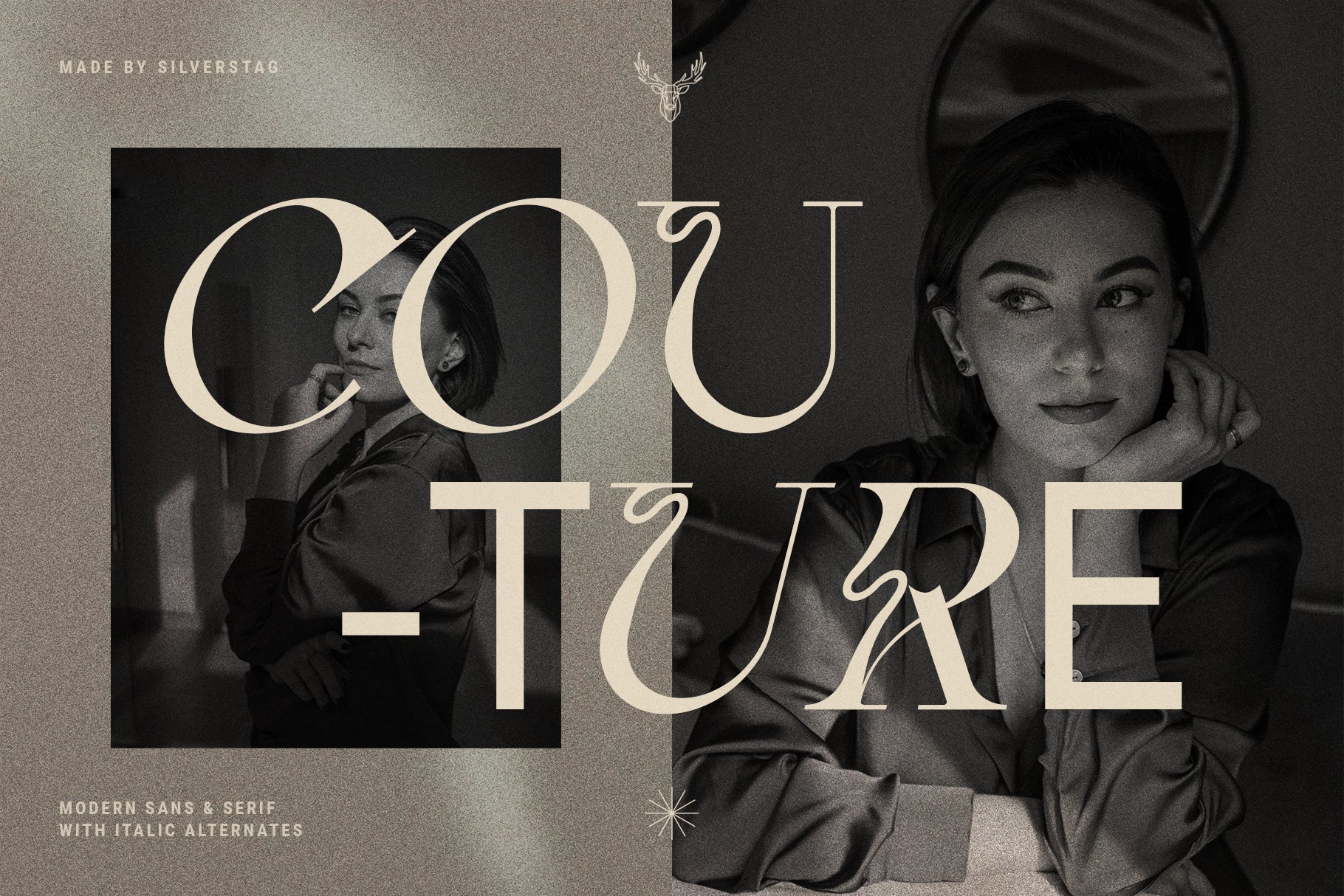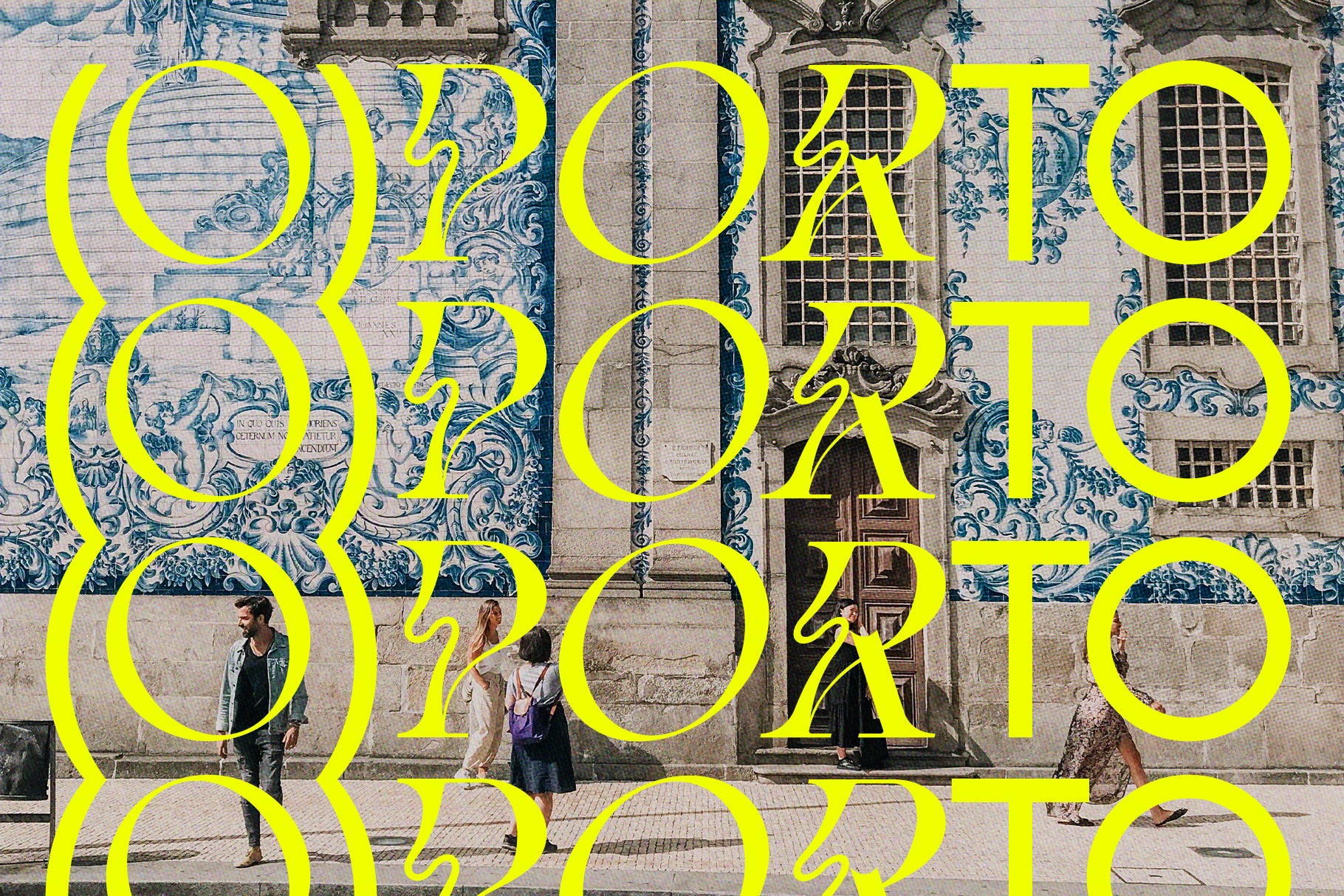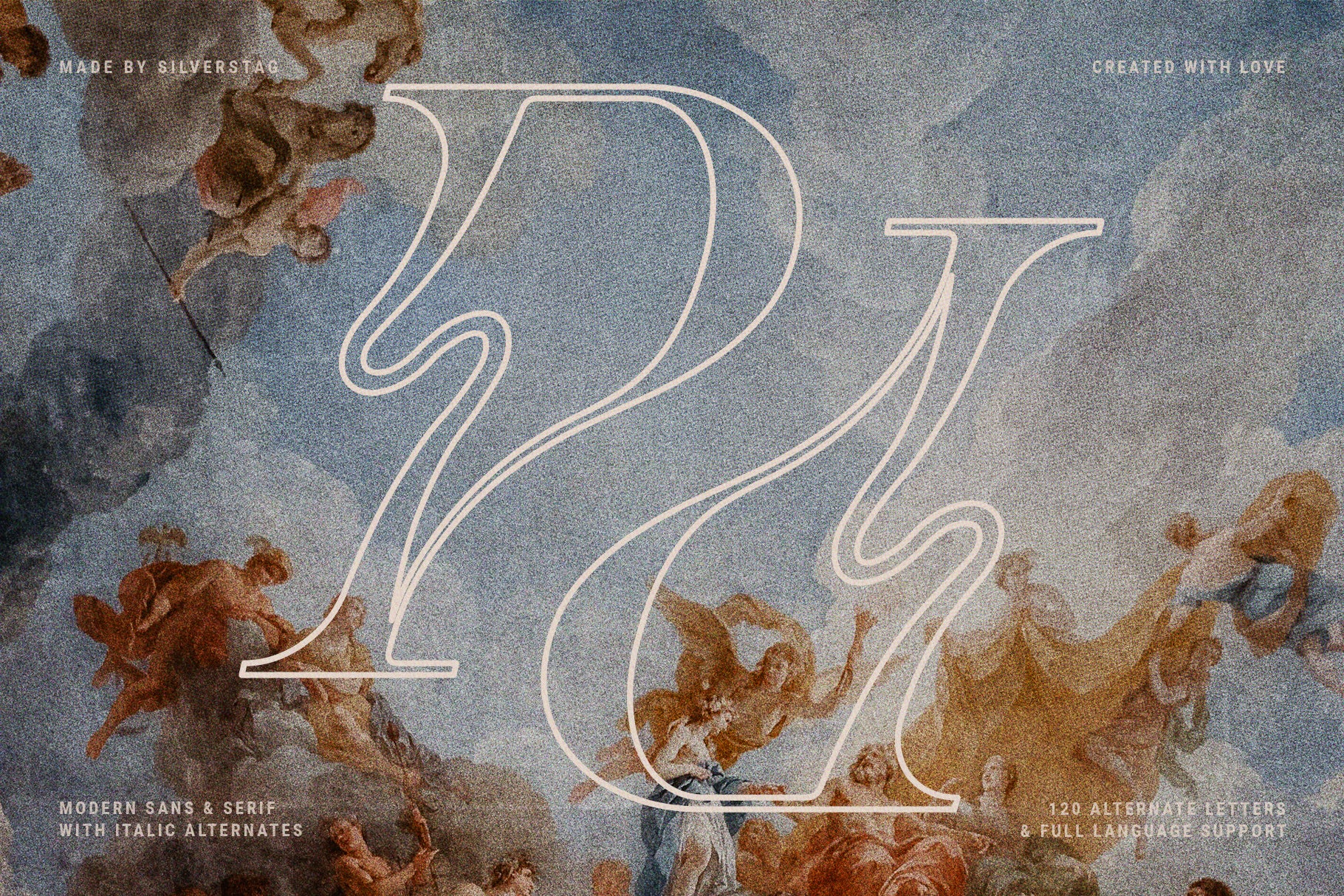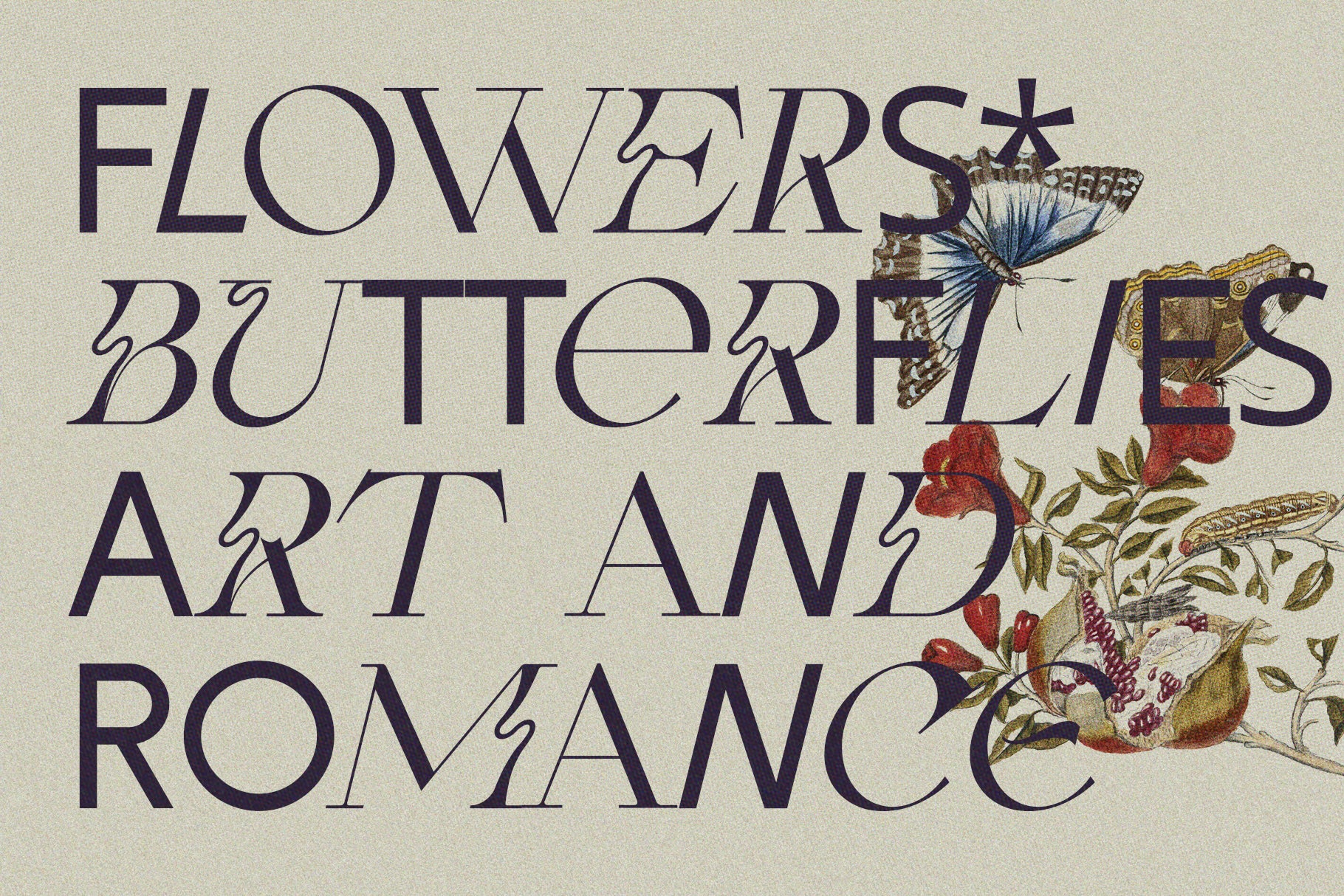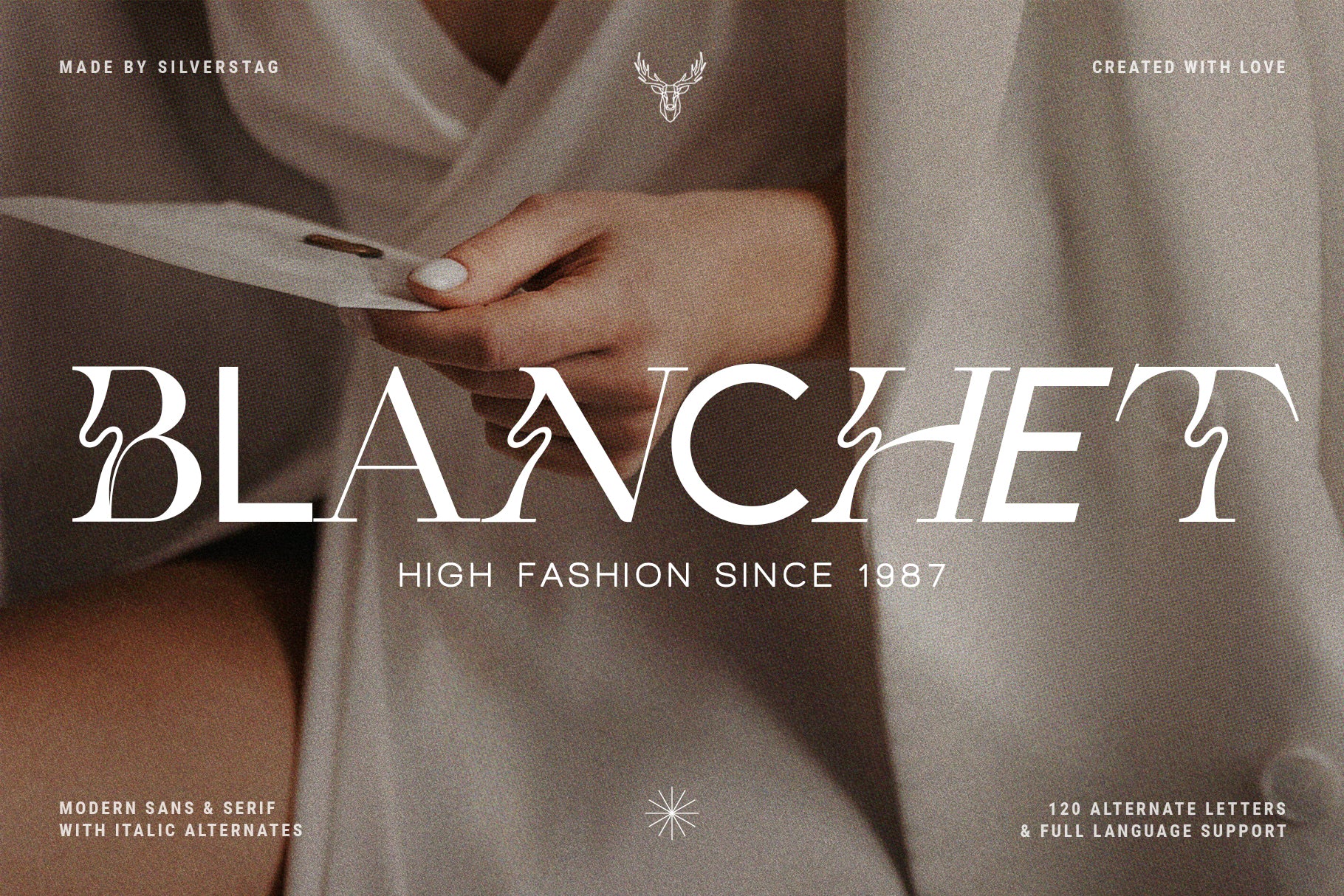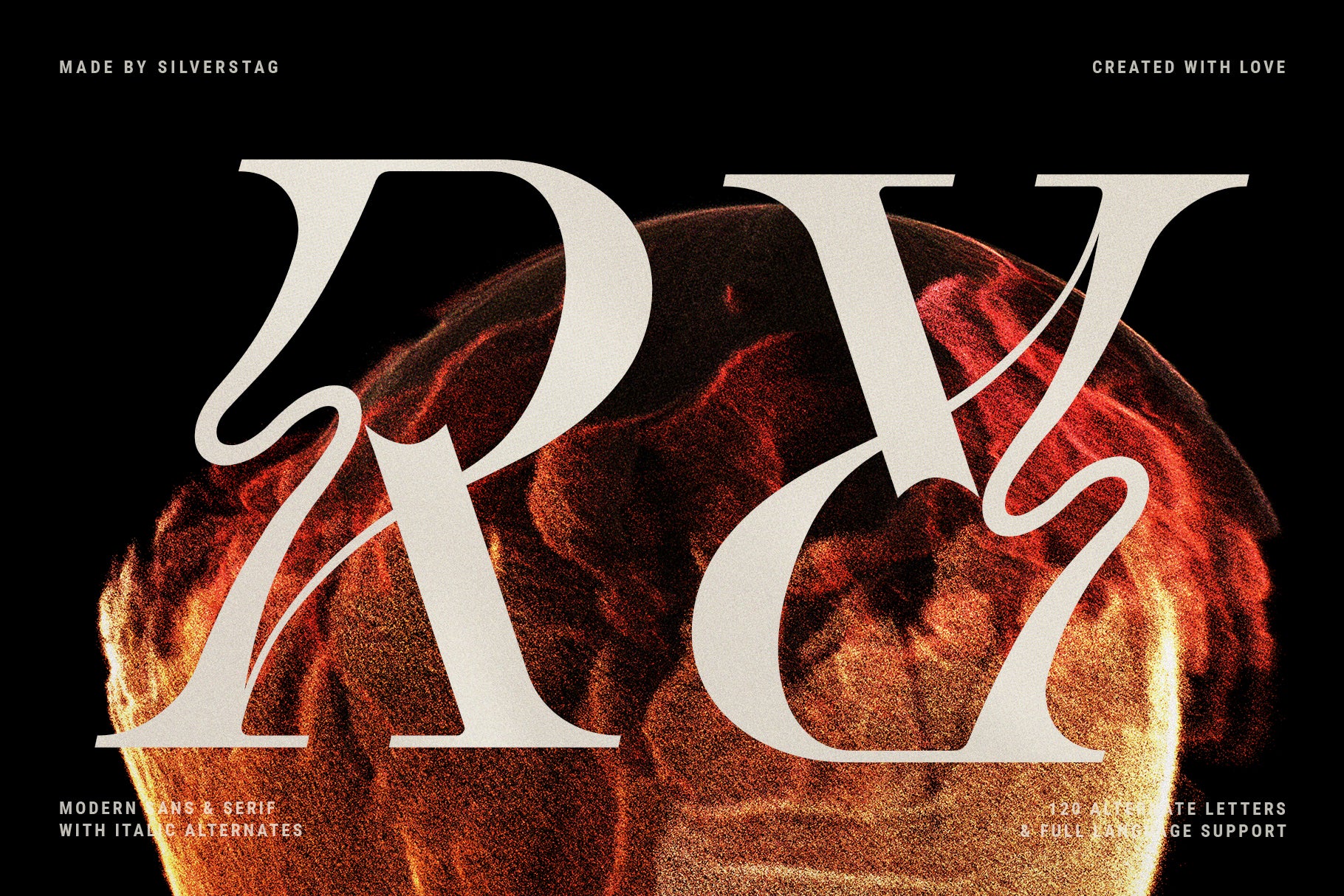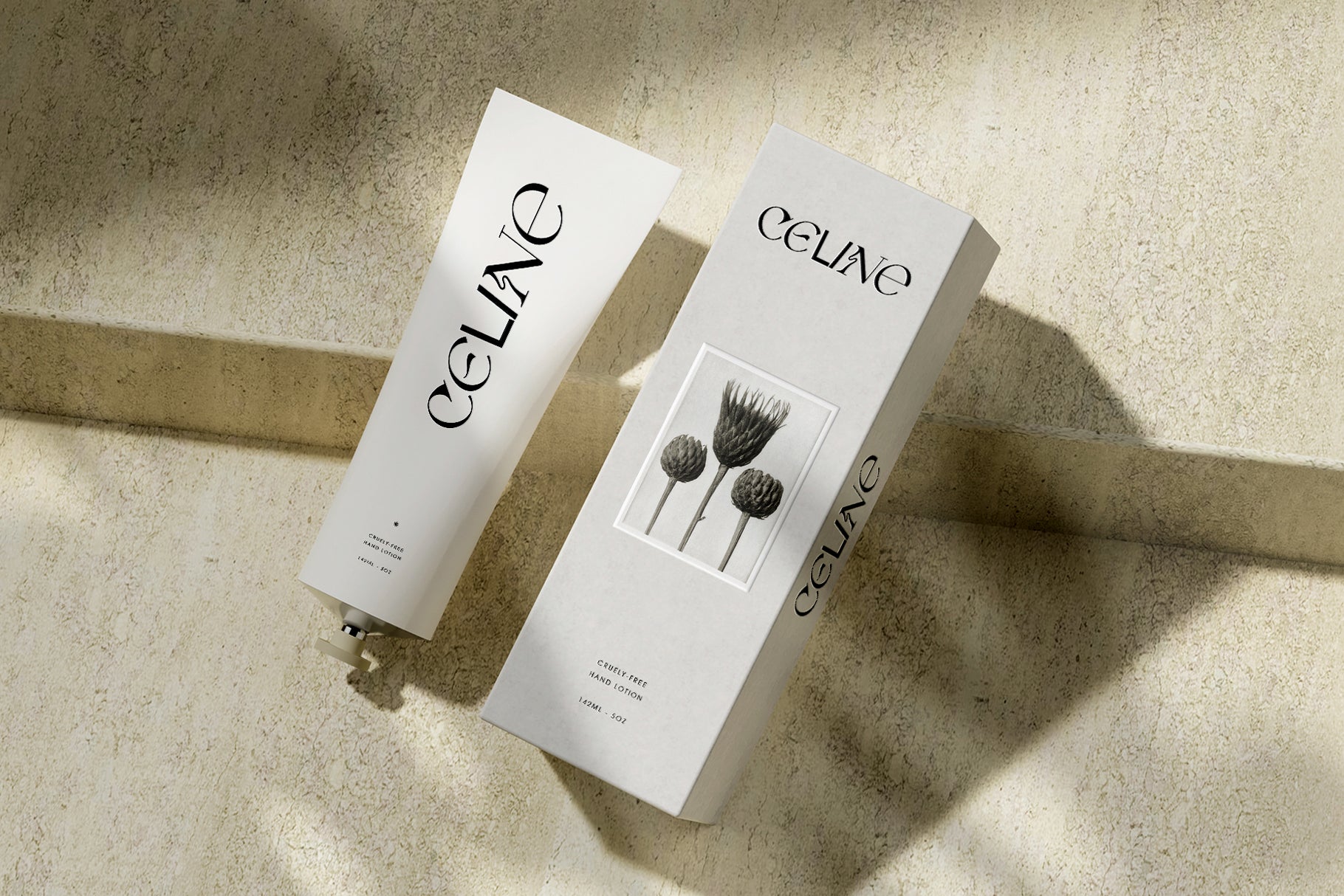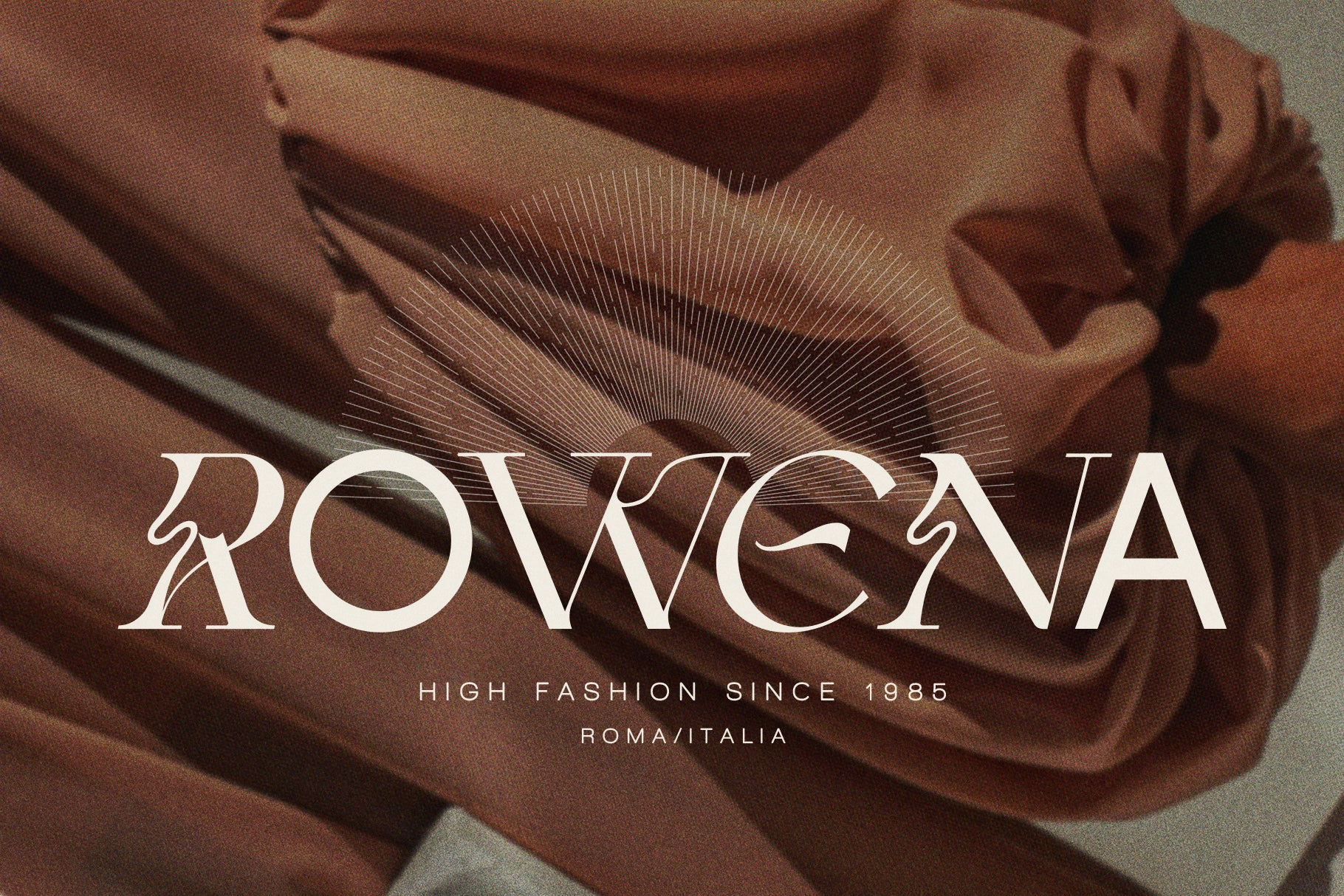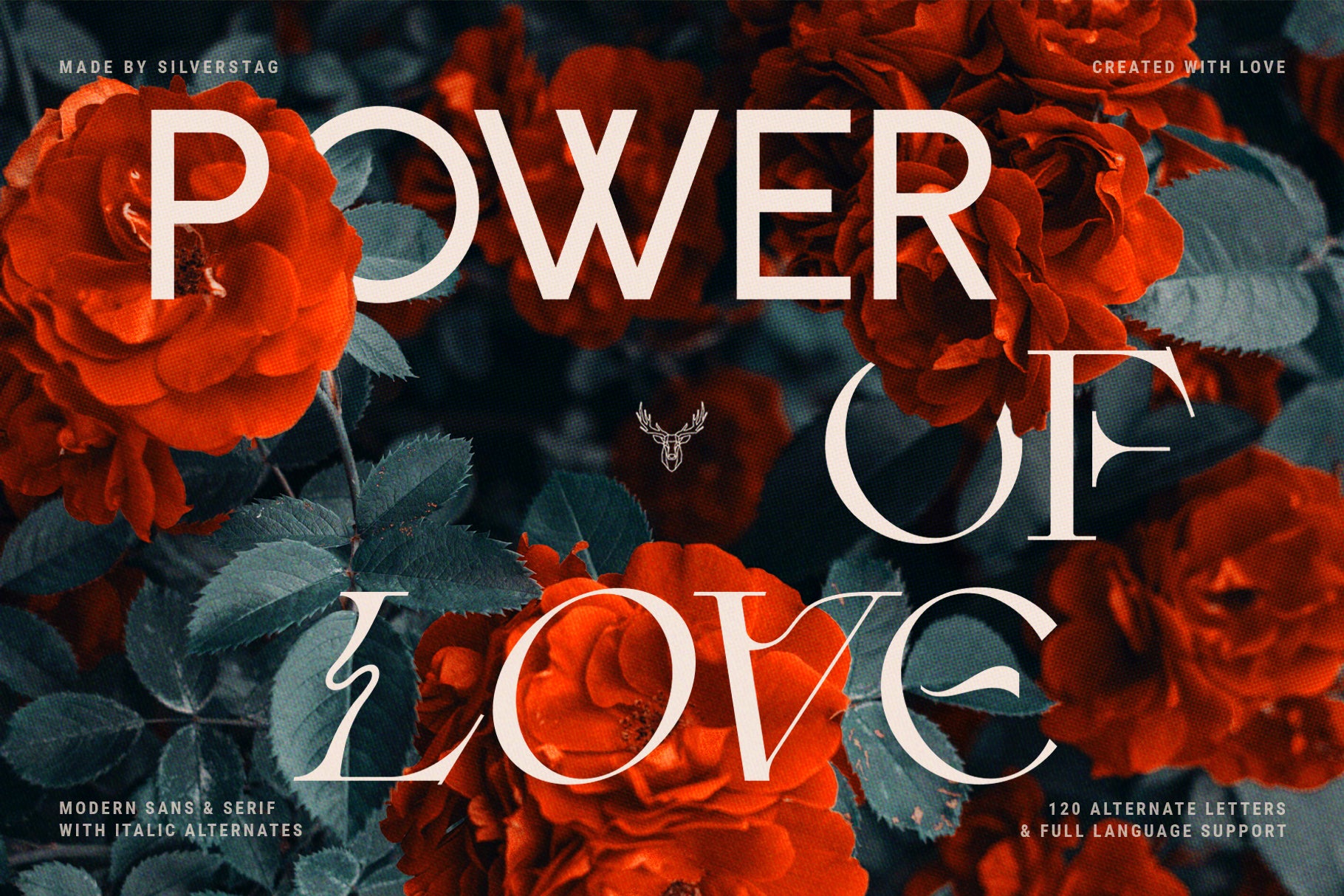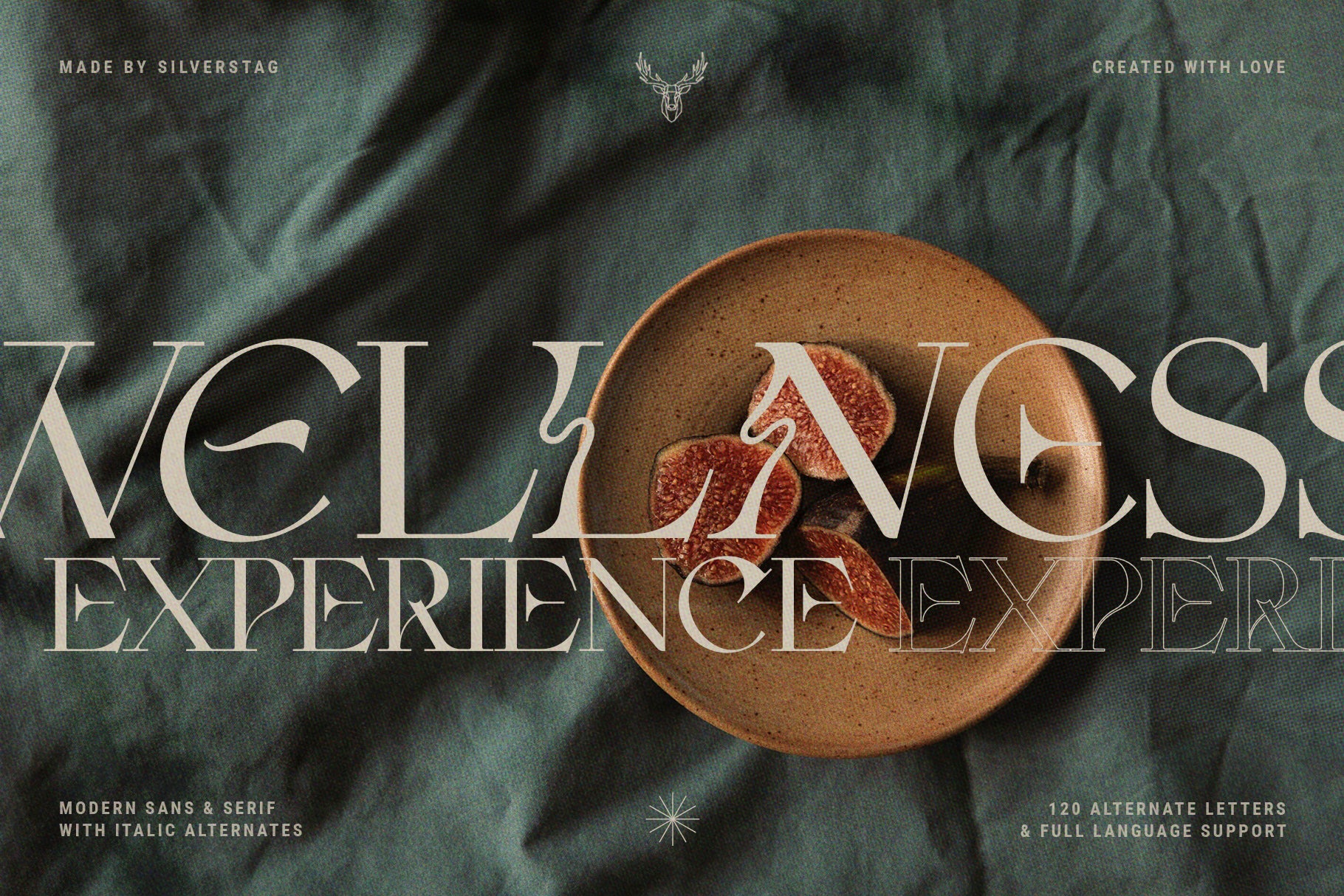
Fleur Display - Sans & Serif Font Duo
Fleur Display is a truly versatile typeface that blurs the lines between sans and serif, regular and italic, outlined and solid—all within a single, beautifully crafted font. Designed for creators who love flexibility, Fleur is an 8-in-1 font experience packed with character and endless design possibilities.
Lowercase letters reveal a...
Fleur Display is a truly versatile typeface that blurs the lines between sans and serif, regular and italic, outlined and solid—all within a single, beautifully crafted font. Designed for creators who love flexibility, Fleur is an 8-in-1 font experience packed with character and endless design possibilities.
Lowercase letters reveal a chic serif style, while uppercase letters unlock a sleek sans serif look. Need italics? Simply access the alternates to find both italic and outlined italic versions effortlessly. And that’s just the beginning—over 120 stylish alternates ensure you can create distinctive typography that feels custom and curated for each project.
Whether you’re crafting sophisticated branding, bold logos, fashion campaigns, social media posts, or elegant packaging, Fleur Display adapts to your creative vision without missing a beat.
This isn’t just a font; it’s a full typographic toolkit ready to elevate your designs with style, versatility, and sophistication.
Fleur Display typeface with Oporto repeated in yellow over an azulejo-tiled Porto building facade
Fleur Display typeface panel reading flowers butterflies art and romance with vintage botanical art
Fleur Display typeface overlapping serif letterforms over a fiery flame texture
Fleur Display typeface spelling Rowena high fashion since 1985 Roma Italia over draped rust silk
Fleur Display typeface layered wellness experience over green fabric with a fig half in a bowl
Fleur Display typeface spelling Margot in yellow italic over a black-and-white flowers overhead photo
Fleur Display typeface reading travel changes what are your plans on olive with a small white photo
Fleur Display typeface on scattered Sophie creator and workbook magazine mockups with bouquet photos
Fleur Display typeface British Library collection specimen over a vintage landscape engraving
Fleur Display typeface spelling couture over a black-and-white satin fashion photo of a woman
Fleur Display typeface thin outlined letterform over a Baroque ceiling fresco of clouds and cherubs
Fleur Display typeface spelling Blanchet high fashion since 1987 over a satin sleeve hand and card
Fleur Display typeface celine branding on two pale cosmetic boxes with a dried thistle insert
Fleur Display typeface reading power of love over a moody photo of red roses and dark leaves
Fleur Display typeface reading all you need is love over a warm intimate photo of a kissing couple
Fleur Display typeface in a fashion website mockup with Monet Garnier Laurent name plates and a portrait
Fleur Display typeface name showcase repeating Eloise Claire Juliet Amelie Marie Jolie over dark roses
Fleur Display typeface spelling magic mirrored over a red-haired woman with arms open in a field
Fleur Display typeface city showcase listing London Miami San Francisco Paris New York and Kyoto